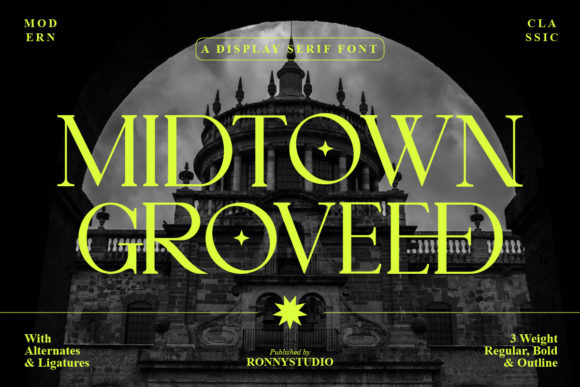
Step into the world of typography with Midtown Groveed, a serif typeface that embodies elegance and timeless appeal. Its meticulously crafted curves and refined strokes evoke a sense of sophistication that will elevate your designs to new heights.
Unleash your creativity with Midtown Groveed, a font family that empowers you to make a lasting impression. Whether you're crafting captivating logos, building a strong brand identity, alluring travel promotions, or designing captivating magazines, this versatile typeface will effortlessly elevate your vision.
Indulge in the beauty of Midtown Groveed, the perfect choice for adding a touch of refinement to your products. Its graceful lines will enhance the appeal of cosmetics packaging, while its bold characters will demand attention in marketing materials. Transform ordinary quotes into works of art with Midtown Groveed, or let its elegant presence elevate any background image.
Embrace the power of Midtown Groveed, a font that speaks volumes without uttering a word. Its timeless design will transcend fleeting trends, ensuring that your creations remain captivating for years to come. Let Midtown Groveed be your typographic muse, inspiring you to create designs that leave an unforgettable mark.